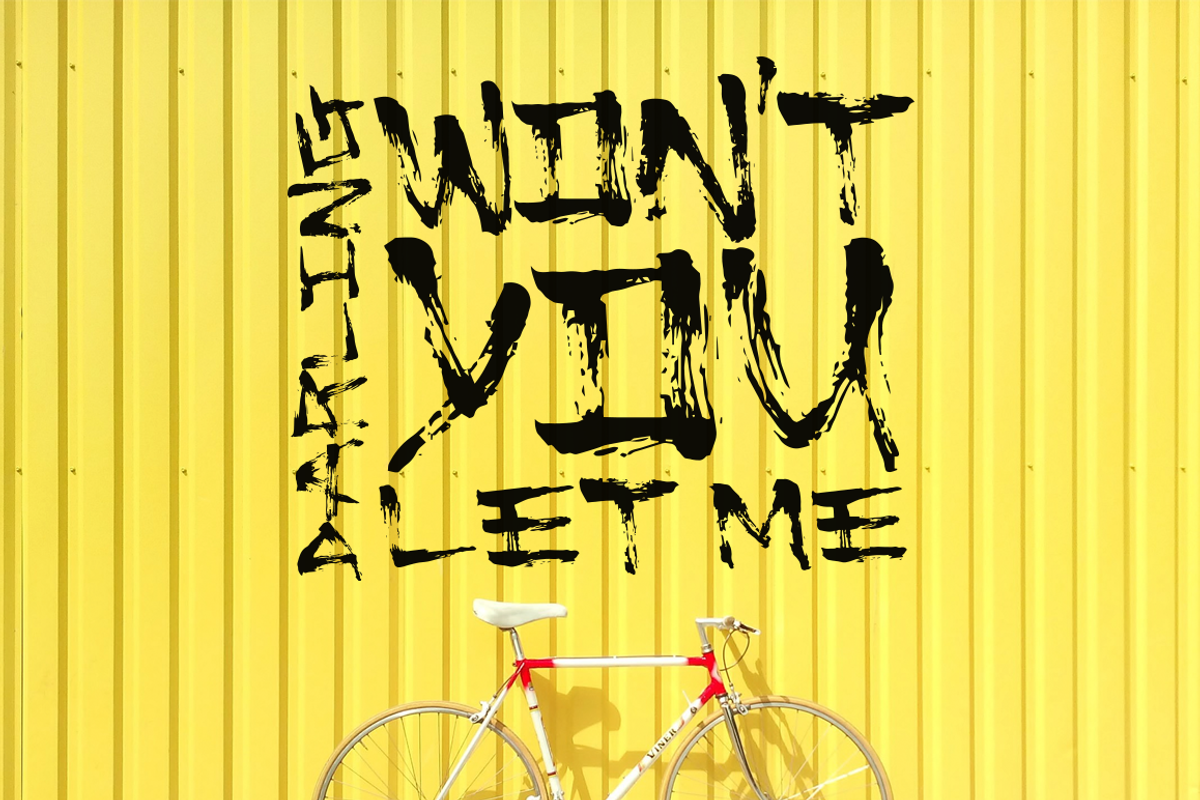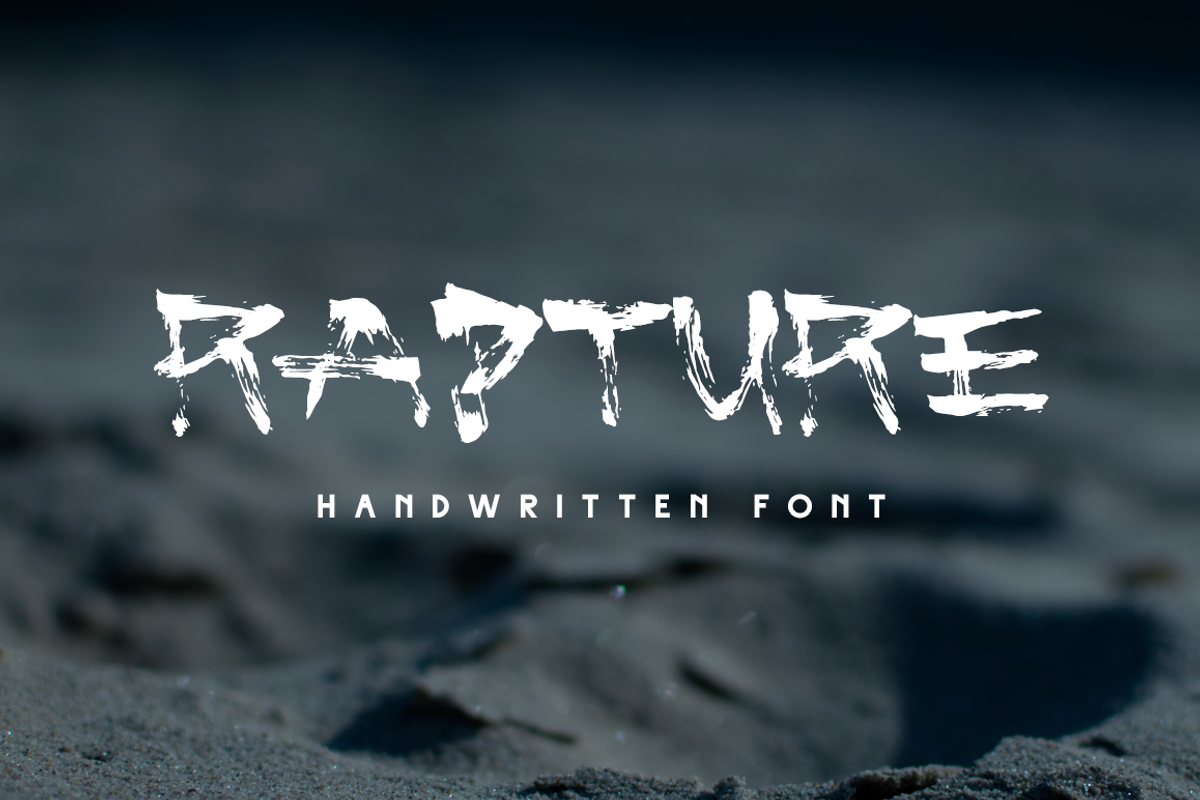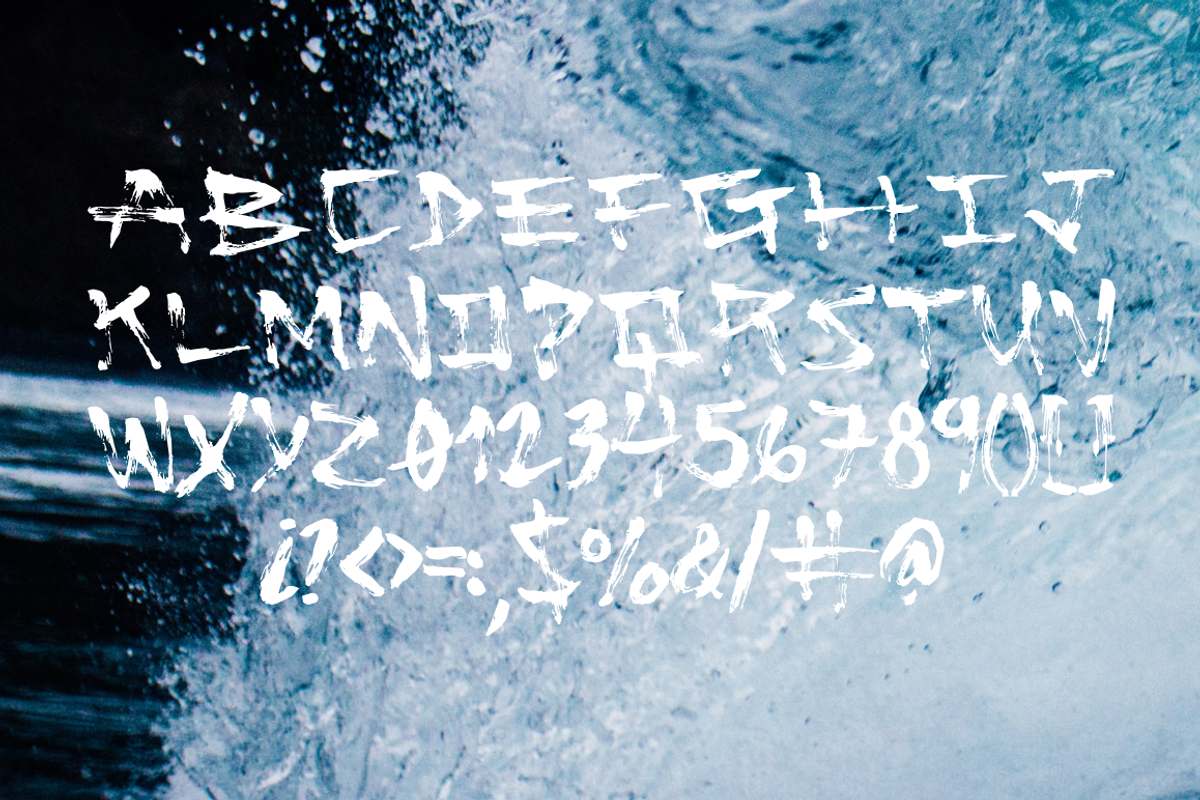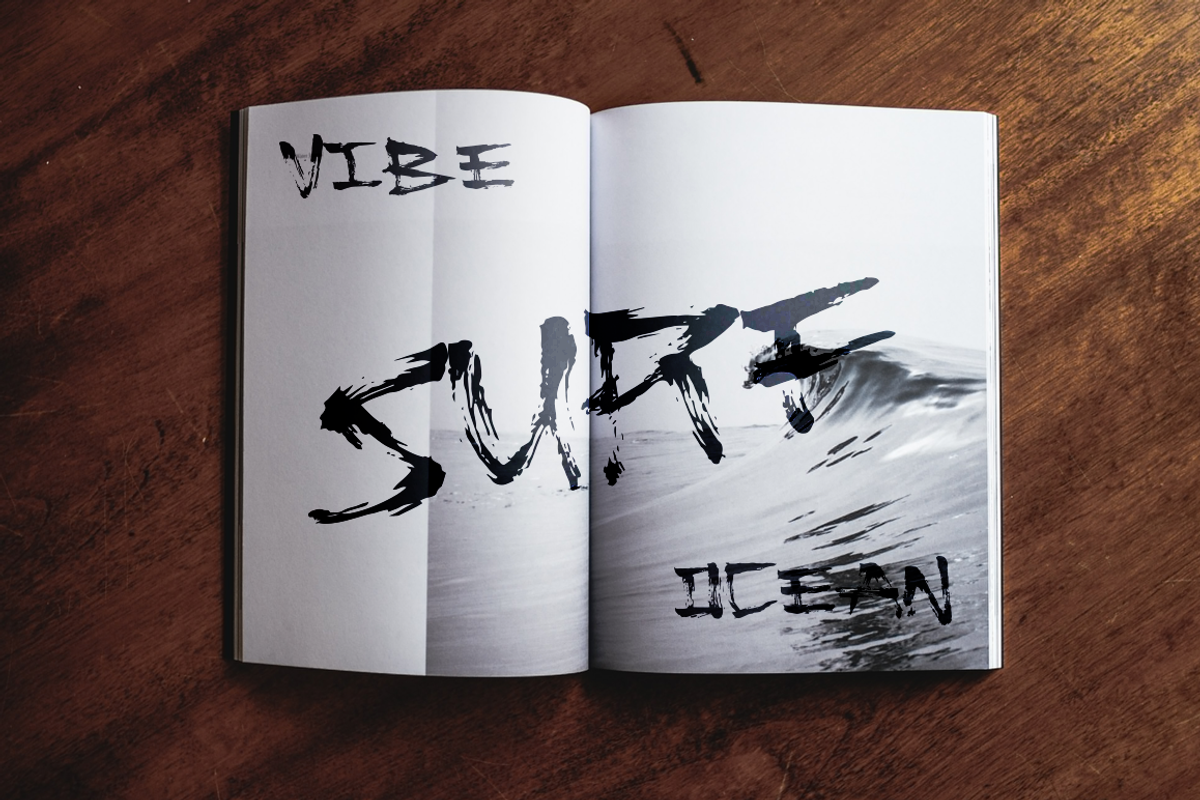
Rapture — Brush Font
Rapture — Brush Font by Noe Araujo is a font selected for branding, posters, packaging, typography.
Why Rapture — Brush Font is worth a look
Rapture — Brush Font by Noe Araujo fits naturally into Branding, posters, packaging, typography.